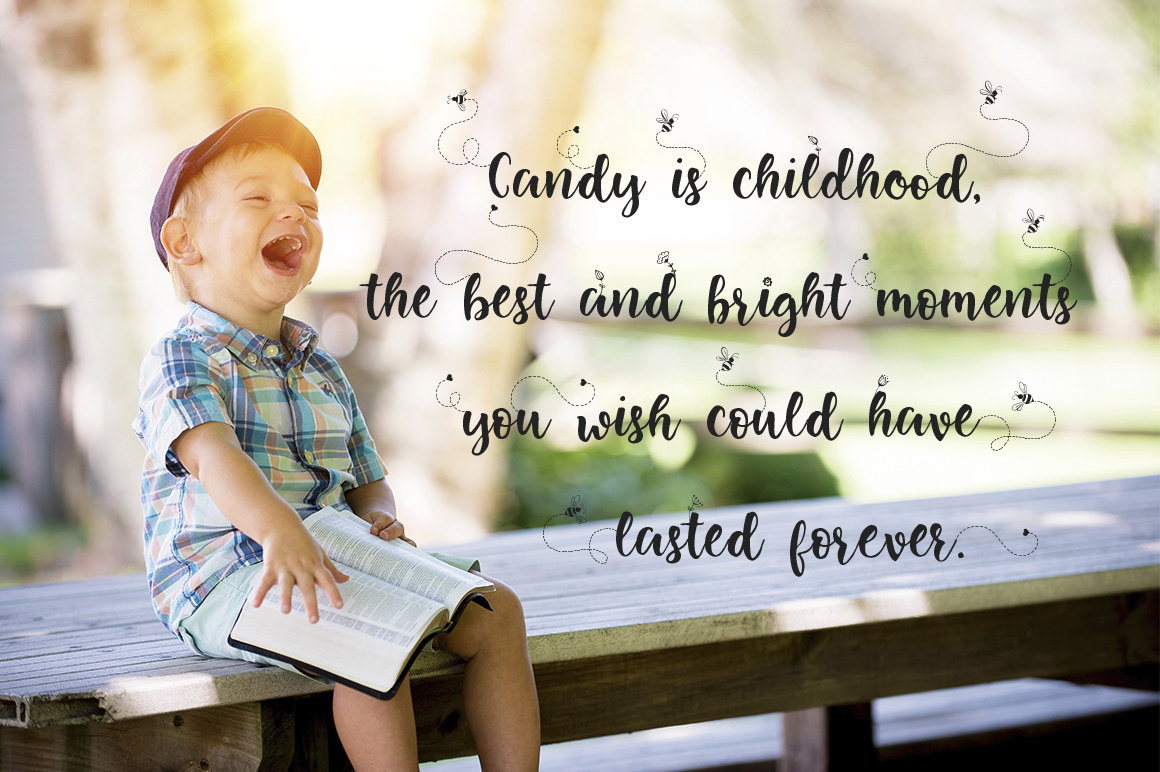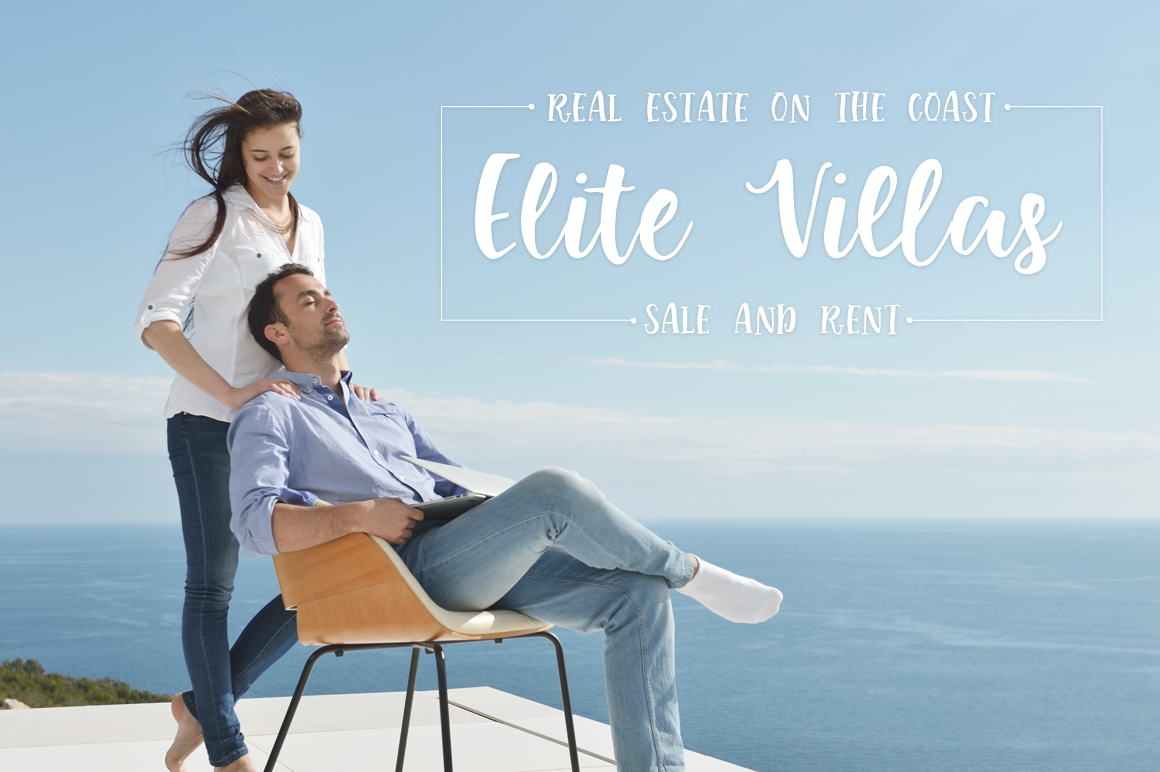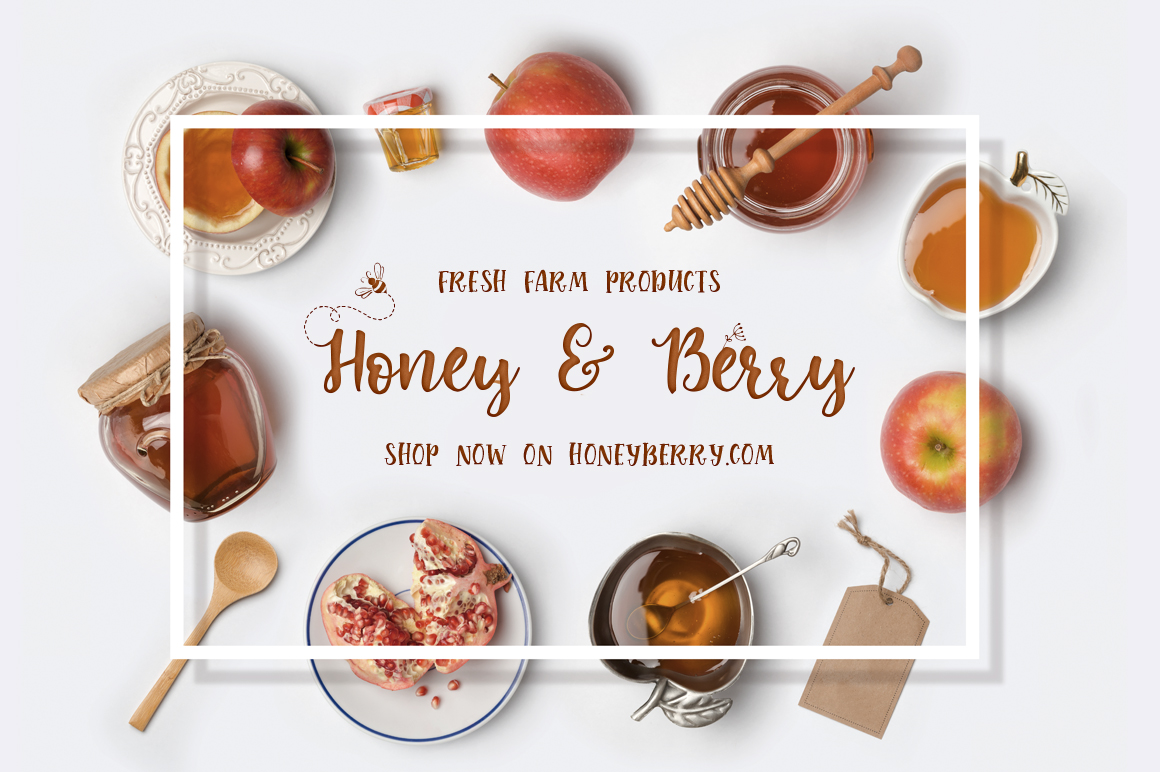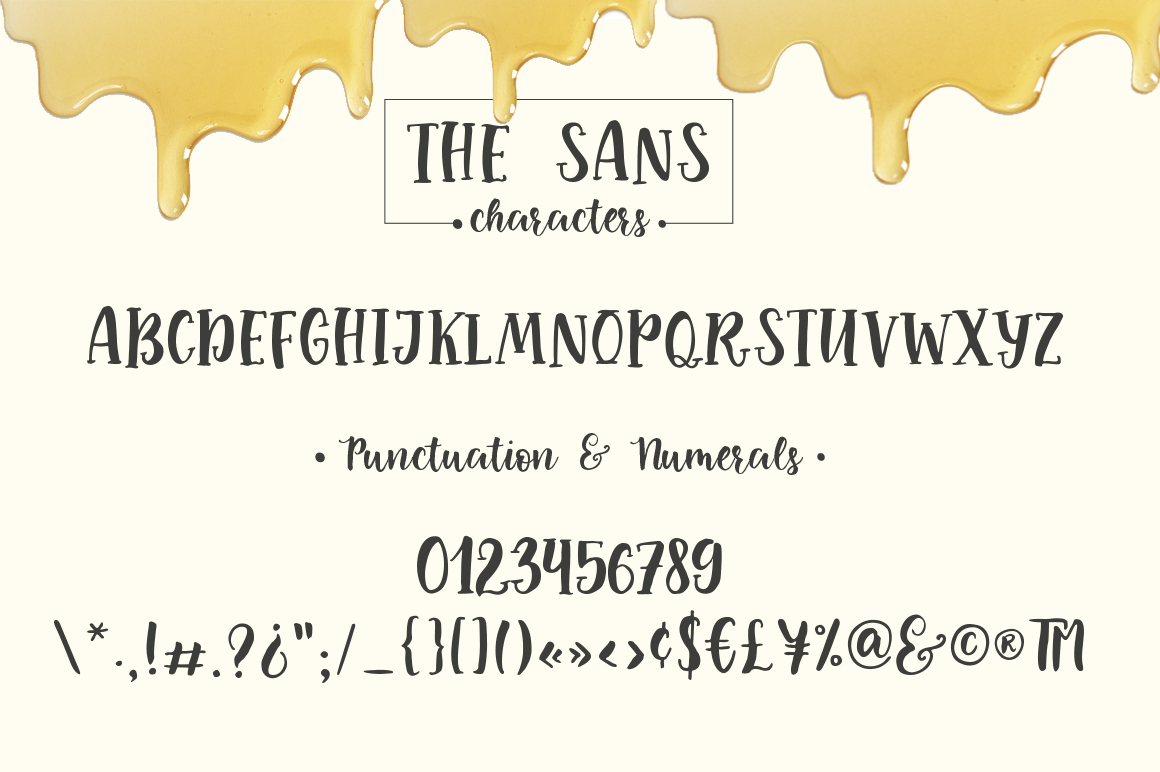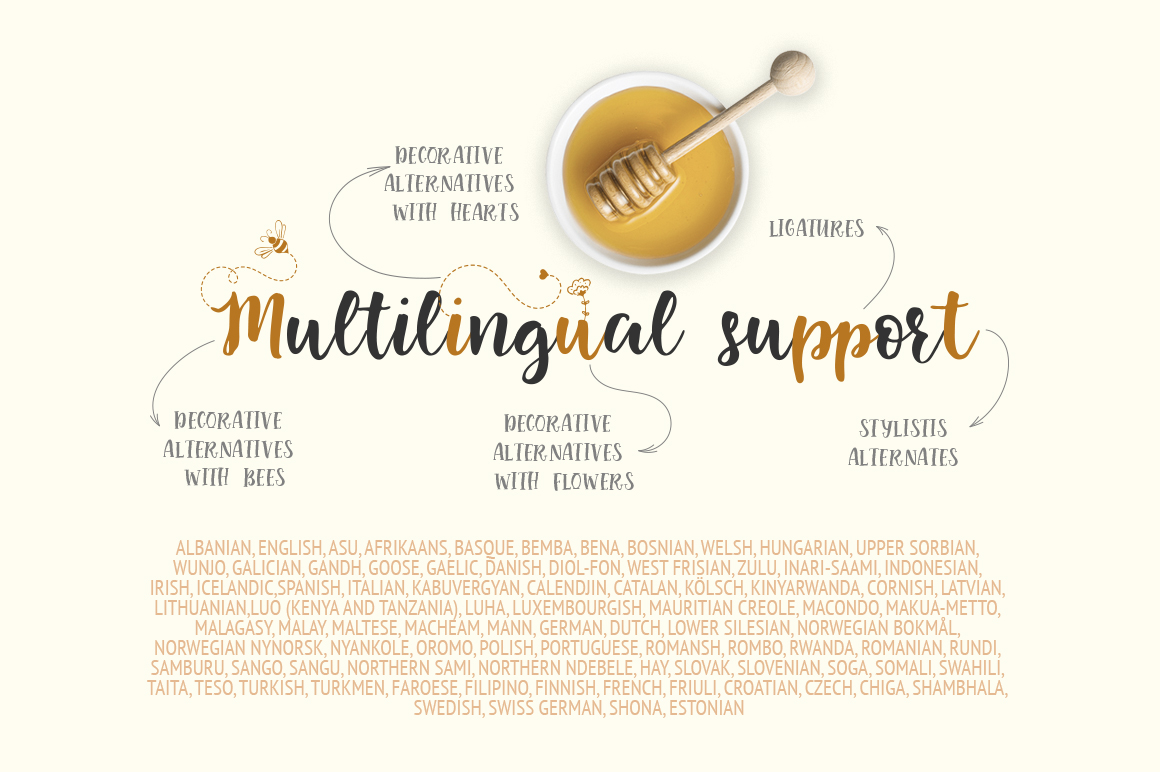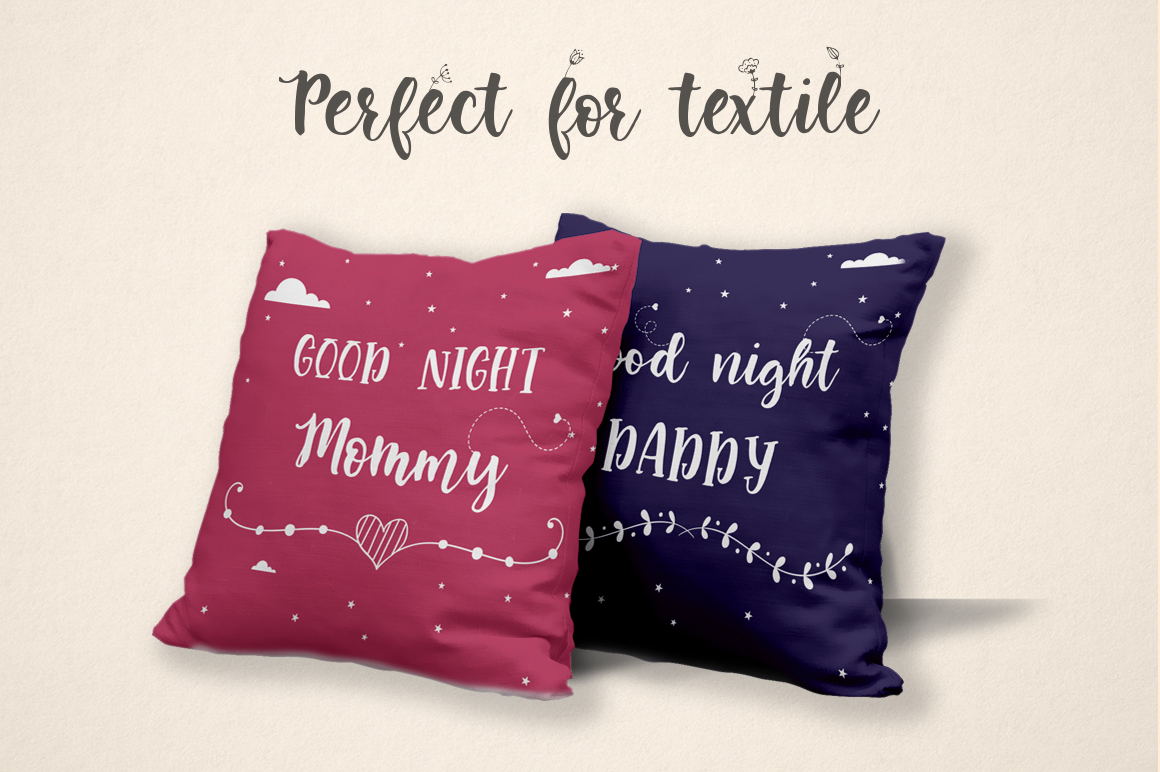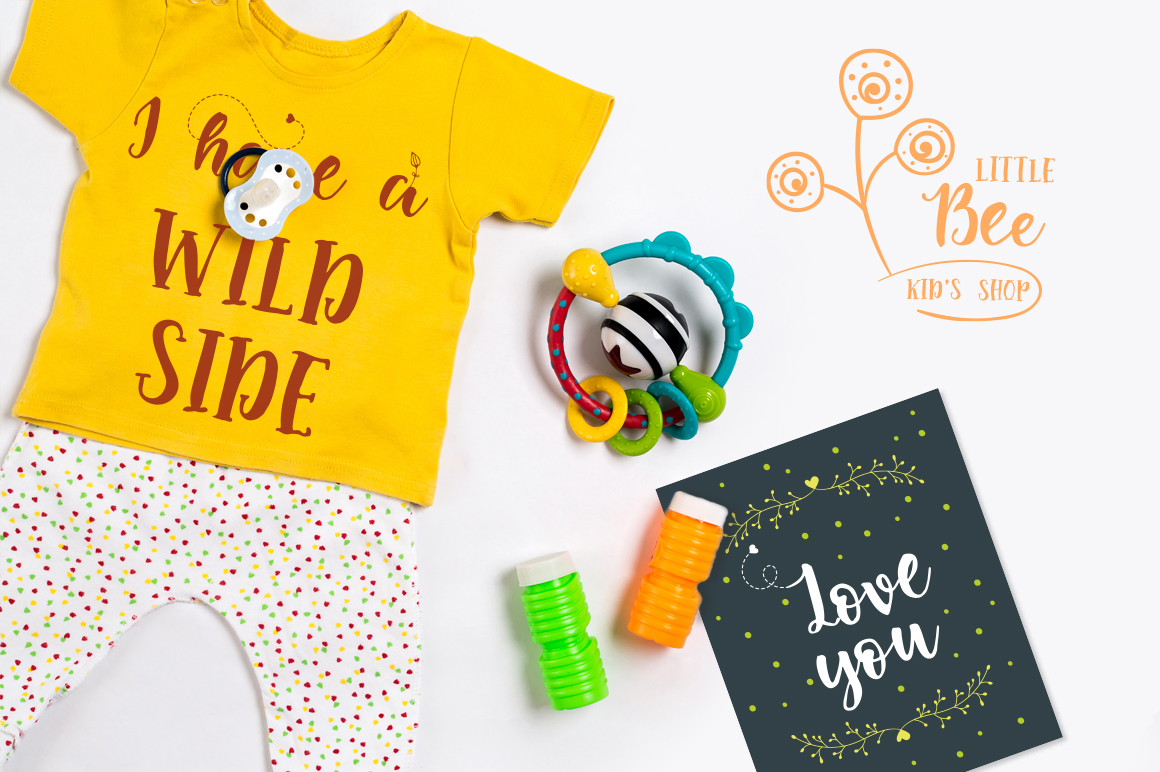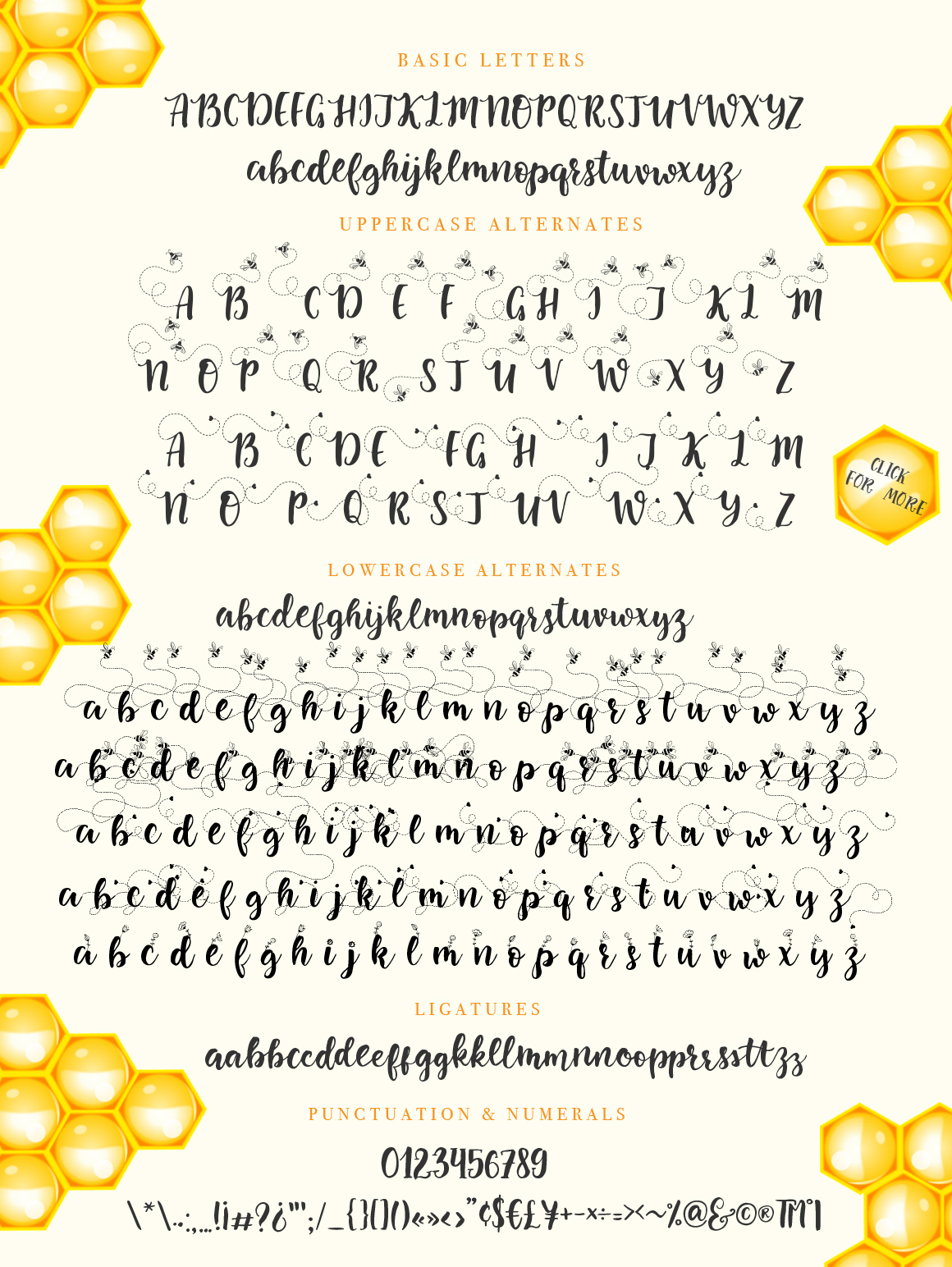
Little Bee Duo Font
About Little Bee Duo Font
Little Bee is an adorable and embellished font set, with nearly limitless options for typographic combinations. With thematic elements included, Little Bee is a font you’ll be going back to time after time.